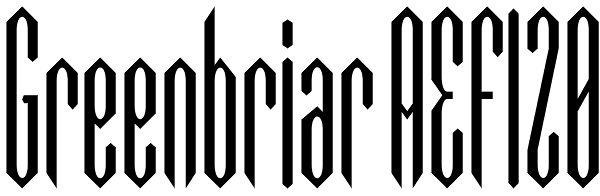
Greenbriar AEF
Greenbriar AEF bears resemblance to blackletter, crisply drawn and creating a hypnotic rhythm through the interplay of stroke and counter, wieght and width. The Greenbriar numbering scheme is based on the weight and width axes of a multiple master...